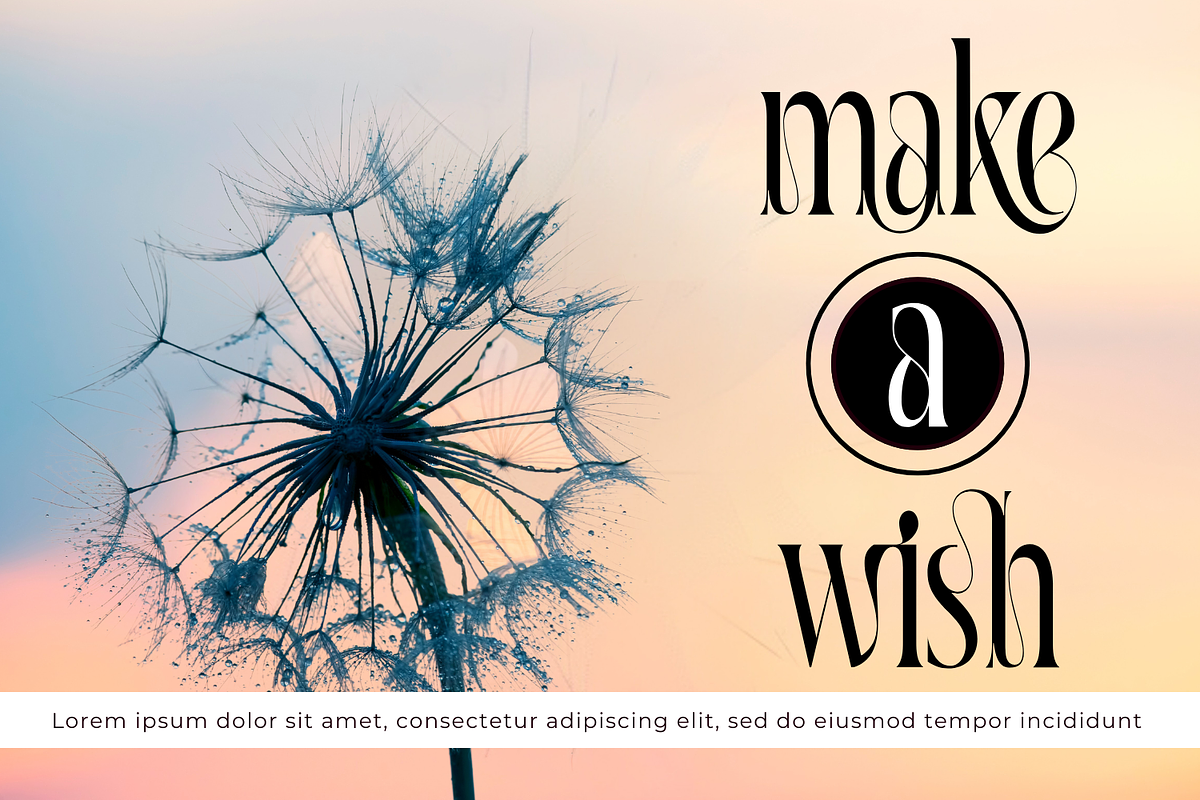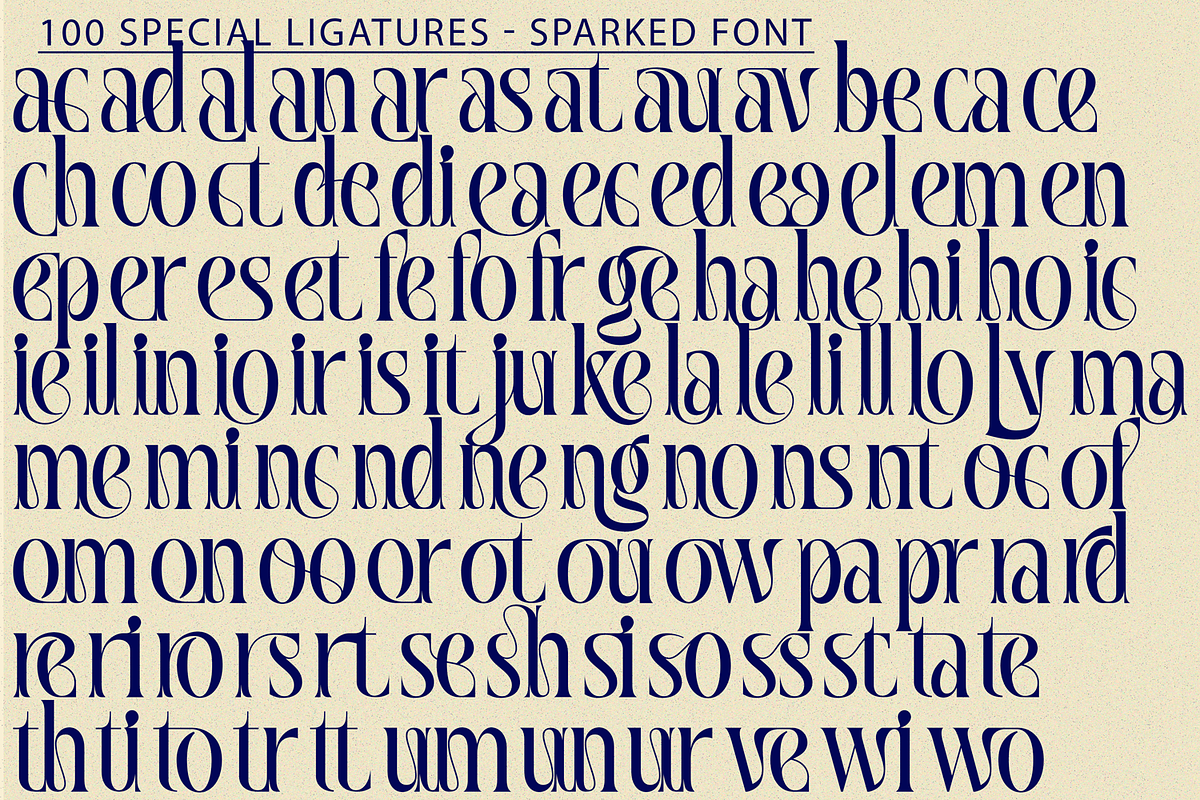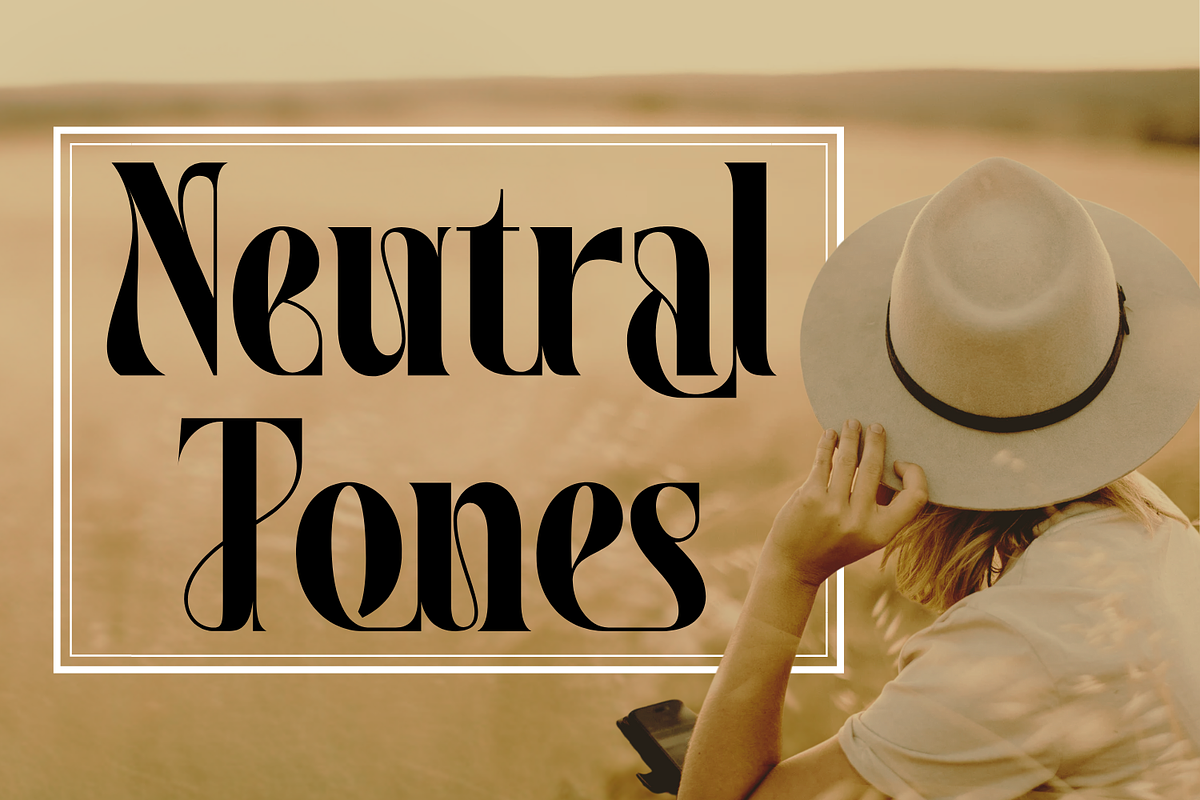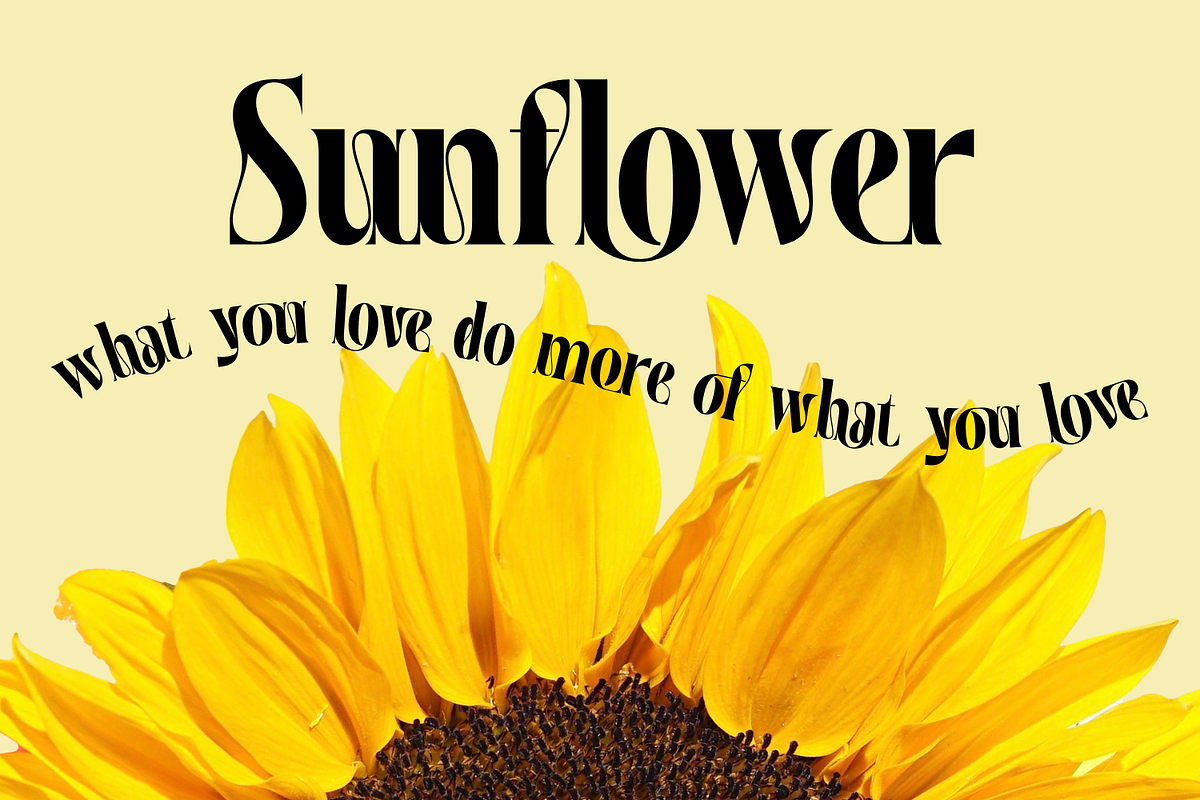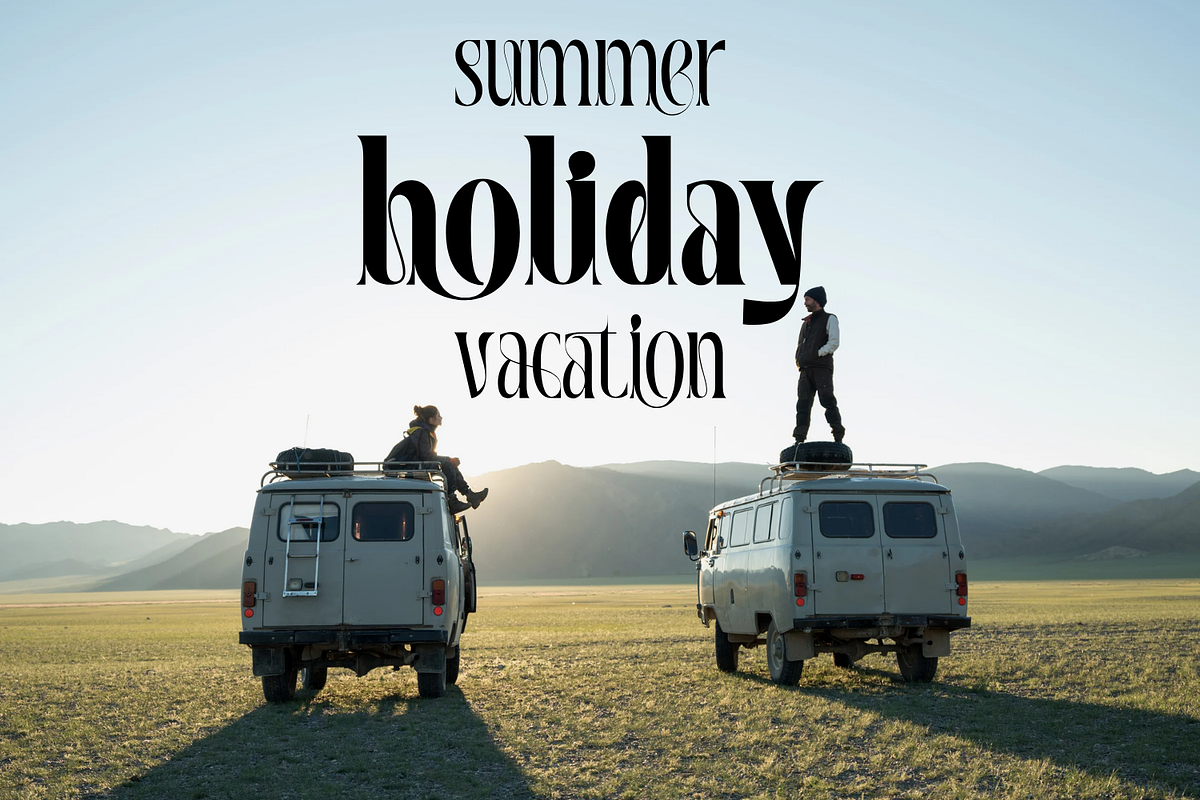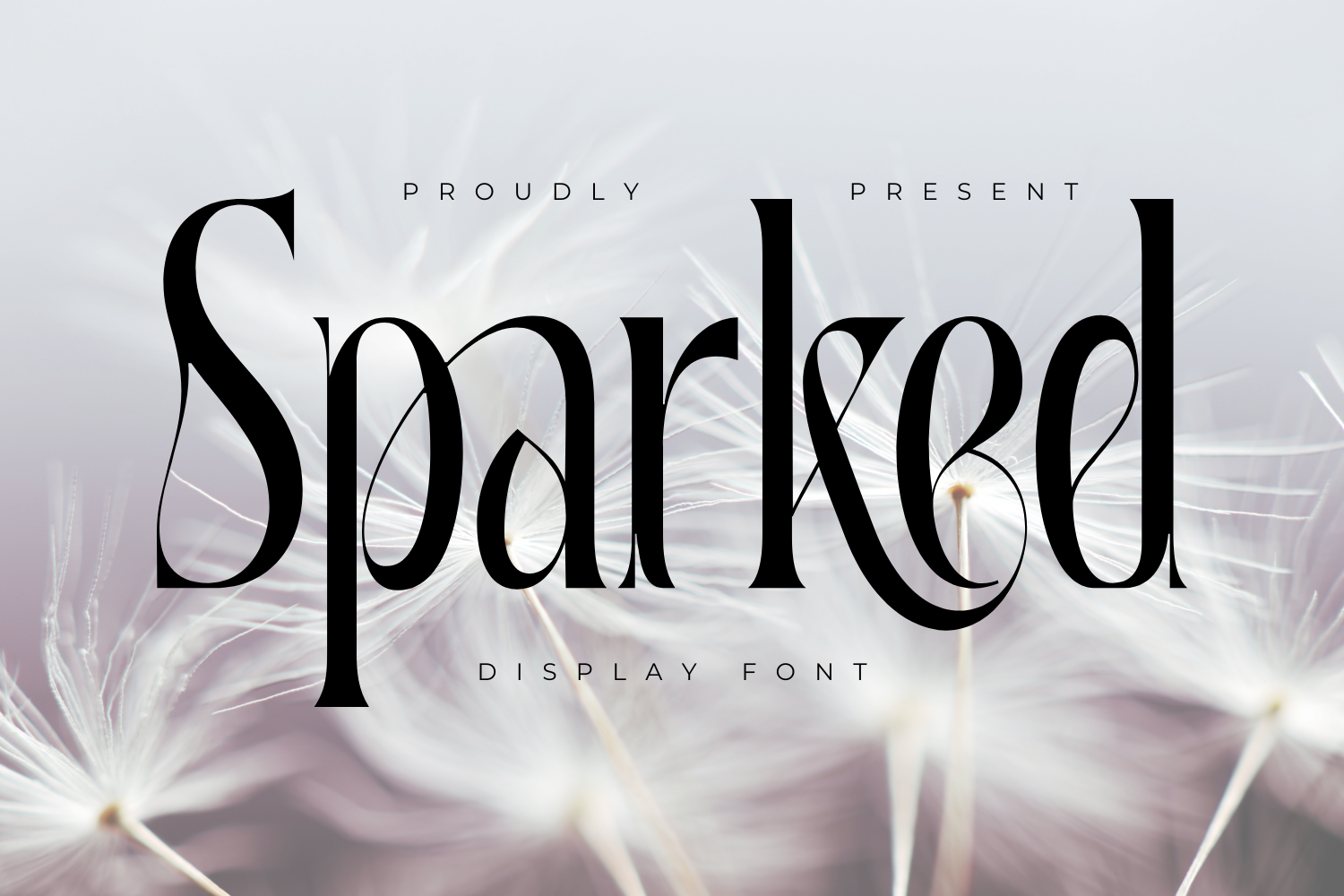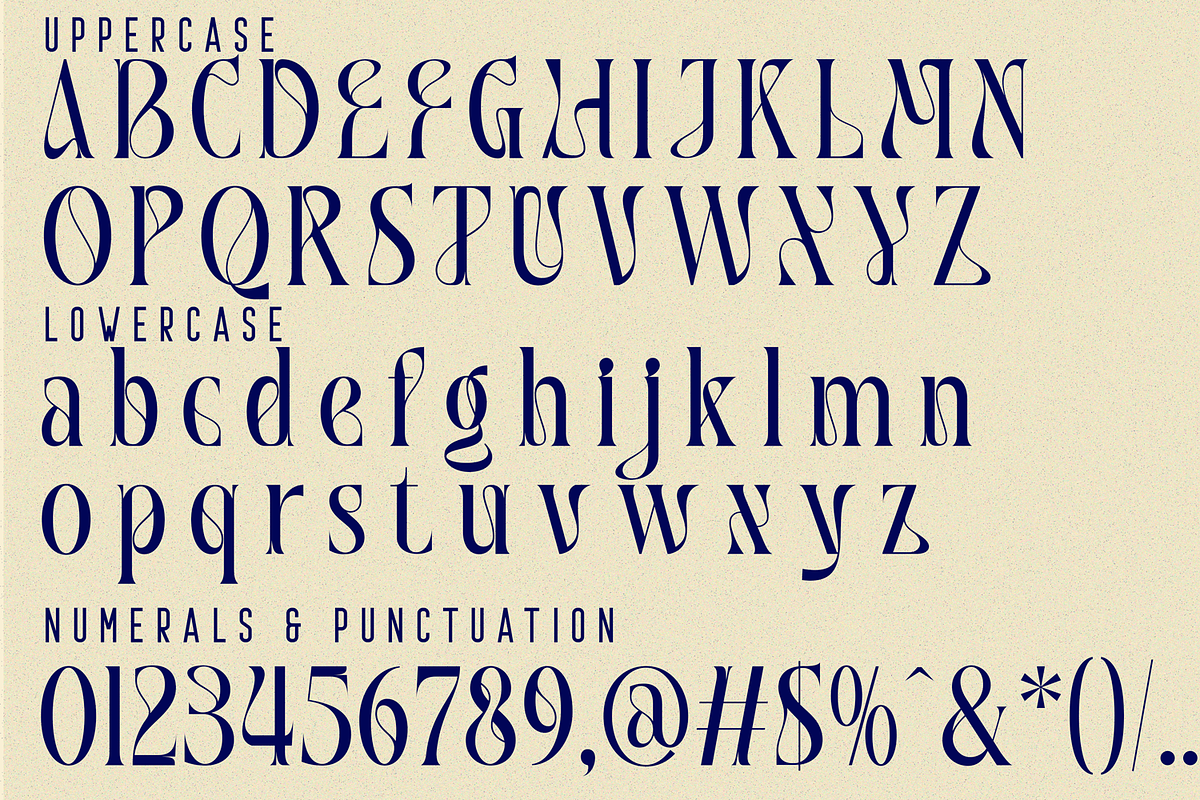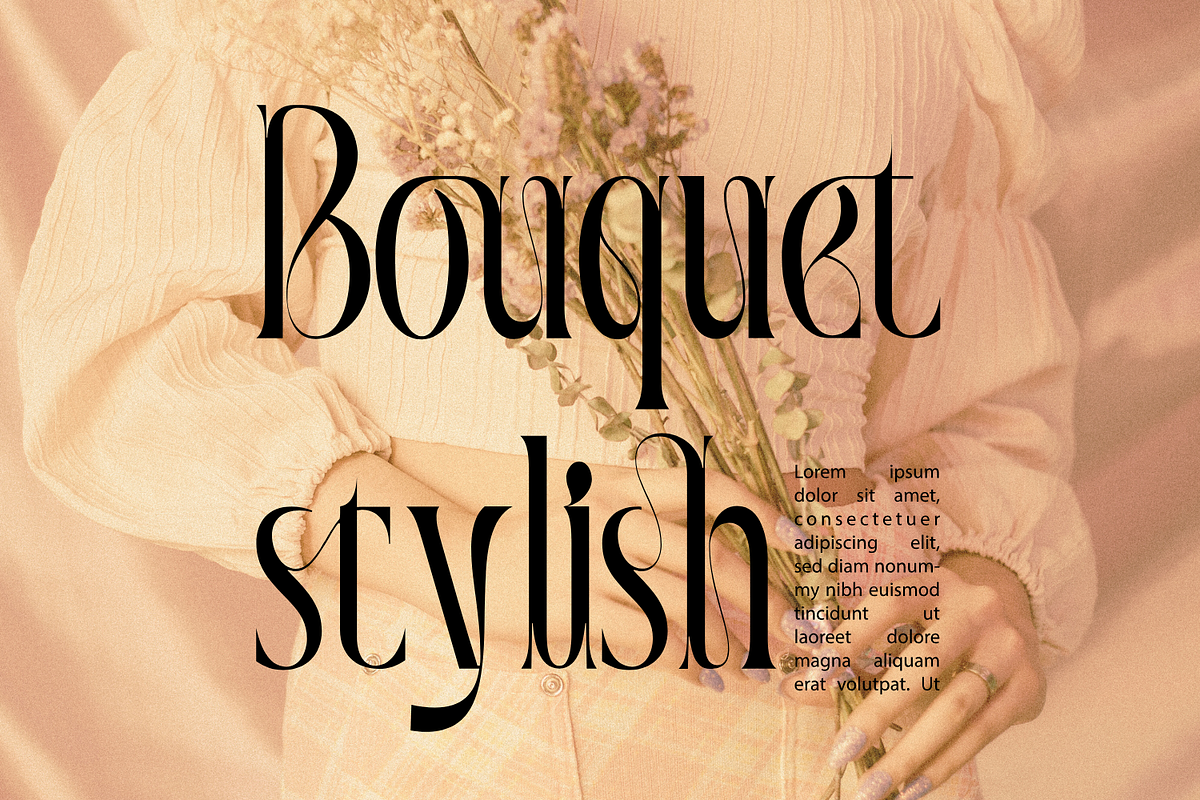
Sparked | Modern Serif Font
Sparked | Modern Serif Font is a sophisticated serif font that seamlessly blends elegance and modernity. Designed for display purposes, Sparked exudes a timeless charm, making it perfect for branding, editorial designs, and high-end typography projects.
This font includes uppercase and lowercase letters, along with an extensive set of 100 special ligatures, numerals, punctuation, and accented characters—ensuring versatile usage across various languages and creative compositions. Whether you're crafting a luxurious logo, an elegant wedding invitation, or a striking magazine headline, Sparked delivers a refined and distinctive typographic experience.
Sparked was built with OpenType features and includes 100 ligatures, alternate, numbers, punctuation, and it also supports other languages.
ac ad al an ar as at au av be ca ce ch co ct de di ea ec ed ee el em en ep er es et fe fo fr ge ha he hi ho ie ic il in io ir is it ju ke la le li ll lo ly ma me mi nc nd ne ng no nt ns oc of om on oo op or ot ou ow pa pr ra rd re ri ro rs rt se sh si so ss st ta te th ti to tr tt um un ur ve wi wo
- Special Ligatures